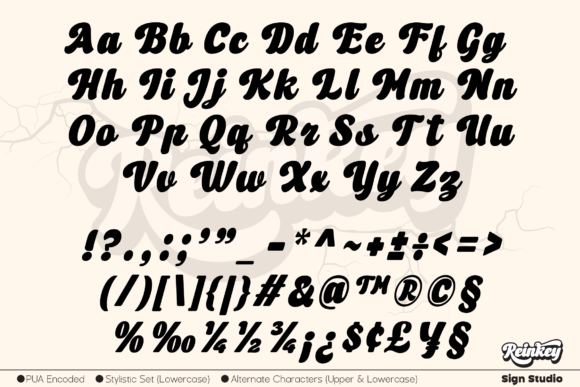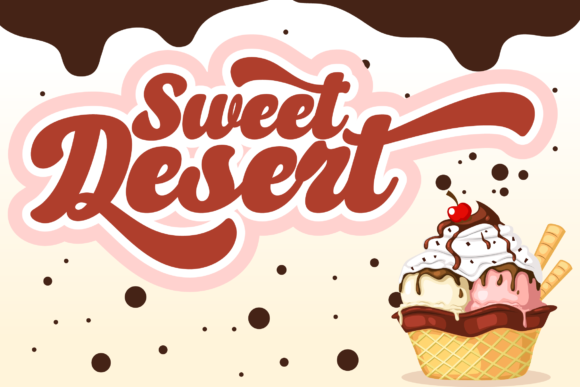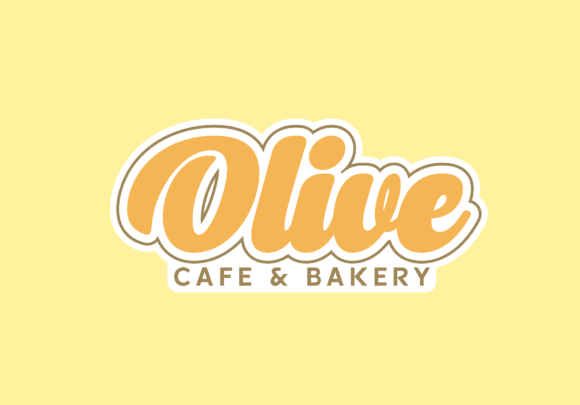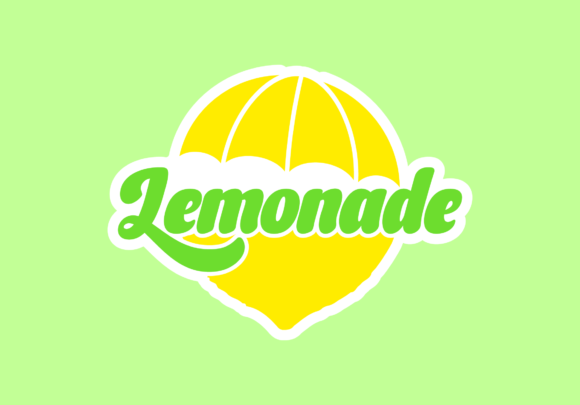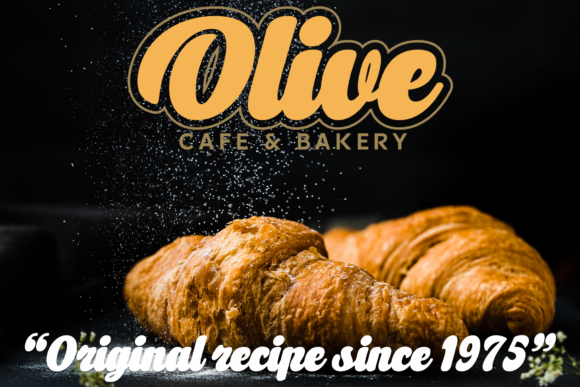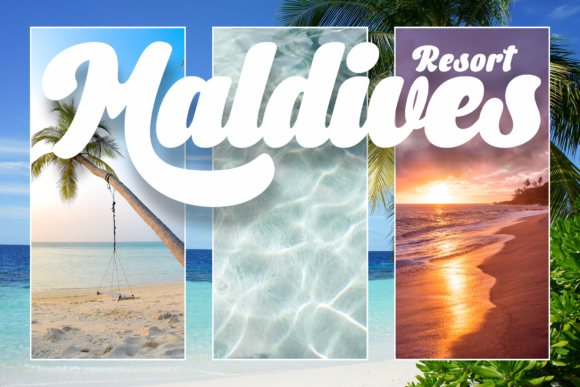
Introduction to Reinkey Font
As a designer, have you ever found yourself stuck on the perfect font to bring your creative project to life? The moment of truth when the entire design hangs on that one crucial element, and you can’t quite seem to find the right fit. For me, that moment is when I stumbled upon the Reinkey Font – a neat and clean brushed display font that has become an instant favorite in my design arsenal.
With its sleek and modern aesthetic, the Reinkey Font is perfect for logotypes, banners, brochures, and branding projects that require a touch of sophistication. But what really sets it apart is its array of alternate characters, making it a valuable resource for designers who need to customize their designs with ease. Whether you’re working on a high-quality brochure or a free download campaign, the Reinkey Font is an excellent choice that will elevate your designs to the next level.
Key Features of Reinkey Font
- Unique and Creative Typography: Reinkey Font offers a distinctive and creative typography style perfect for various design projects.
- High-Quality Design Resource: This font is designed with high-quality graphics, ensuring a crisp and clear display on any device.
- Transparent Background Option: Reinkey Font provides a transparent background option, making it ideal for use on images or videos with complex backgrounds.
- Perfect for Creative Projects: Reinkey Font is an excellent choice for designers working on creative projects, such as logos, branding materials, and marketing campaigns.
Honest Review: Reinkey Font
As a designer, I’ve had the chance to work with various fonts, and I must say that Reinkey Font has been a delightful addition to my design resource library. ✨
Here are some things that stood out to me:
- High quality design: The Reinkey Font is incredibly well-designed, with a unique style that adds a touch of elegance to any creative project.
- Transparent background: The transparent background option is a game-changer for designers who want to create visually appealing graphics with a seamless look.
- Limited font sizes: While the Reinkey Font is incredibly detailed, I found that it’s not suitable for very large or very small font sizes.
- No bold or italic options: As much as I love the font’s design, I found that the lack of bold or italic options can limit its versatility.
Overall, I’m impressed with the Reinkey Font and would definitely recommend it to designers looking for a high-quality, unique font for their creative projects.
The Reinkey Font is ideal for use in creative projects, such as logos, brochures, and social media graphics. It’s also great for use in presentations, documents, and websites that require a unique and eye-catching font.
Tips for Getting the Most Out of Reinkey Font
To get the most out of the Reinkey Font, use it in combination with a transparent background to create a clean and modern look. Experiment with different font sizes and styles to create visual interest and emphasis.